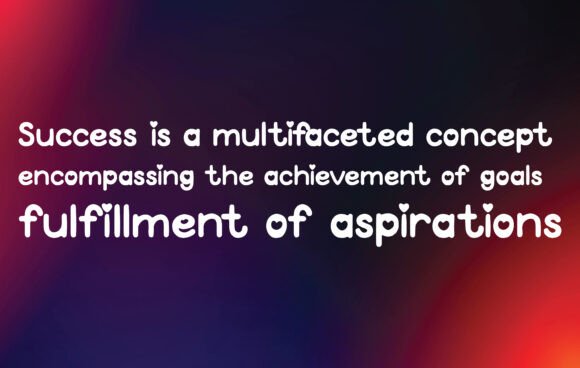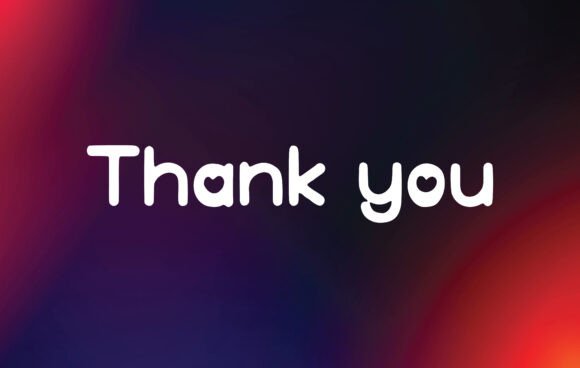
Aphra Font: Elevate Your Creative Projects with Elegance and Sophistication
In the world of typography, a beautiful handwritten font can make all the difference in bringing your creative ideas to life. Introducing Aphra Font, a lovely and beautiful handwritten font that has the potential to take your designs to the highest level. With its elegant and sophisticated charm, Aphra Font is the perfect choice for creating eye-catching logos, branding, and quotes that leave a lasting impression.
The Beauty of Aphra Font
Aphra Font is a stunning example of handwritten typography, with each letter carefully crafted to exude a sense of elegance and refinement. The font’s flowing lines and curves create a sense of movement and fluidity, making it perfect for designs that require a touch of sophistication. Whether you’re looking to create a logo, branding materials, or social media graphics, Aphra Font is sure to impress.
Key Features of Aphra Font
- Handwritten Elegance: Aphra Font boasts a beautiful handwritten style that adds a personal touch to any design.
- Versatile: With its clean and simple design, Aphra Font can be used for a wide range of creative projects, from logos and branding to quotes and social media graphics.
- Ease of Use: Aphra Font is easy to read and works well in both digital and print formats, making it a versatile choice for designers.
- Unique Character: Aphra Font has a unique character that sets it apart from other fonts, making it perfect for designers looking to create something truly special.
Uses of Aphra Font
Aphra Font is an incredibly versatile font that can be used for a wide range of creative projects. Here are some ideas to get you started:
- Logo Design: Create a stunning logo for your business or brand with Aphra Font.
- Branding: Use Aphra Font to create a consistent brand identity across all your marketing materials.
- Quotes and Posters: Add a touch of elegance to your quotes and posters with Aphra Font.
- Social Media Graphics: Use Aphra Font to create eye-catching social media graphics that stand out from the crowd.
- Wedding and Event Stationery: Aphra Font is perfect for creating beautiful wedding and event stationery, such as invitations and thank-you cards.
Why Choose Aphra Font?
With so many fonts available, why choose Aphra Font? Here are just a few reasons why Aphra Font stands out from the rest:
- Unique Style: Aphra Font has a unique style that sets it apart from other fonts.
- Ease of Use: Aphra Font is easy to read and works well in both digital and print formats.
- High-Quality Design: Aphra Font is designed with high-quality craftsmanship, ensuring that it looks great in any design.
- Support for Creative Projects: Aphra Font is perfect for supporting creative projects, such as logos, branding, and quotes.
In conclusion, Aphra Font is a beautiful and elegant handwritten font that has the potential to take your creative ideas to the highest level. With its unique style, ease of use, and high-quality design, Aphra Font is the perfect choice for designers and crafters looking to create stunning logos, branding, and quotes. Whether you’re a seasoned designer or just starting out, Aphra Font is sure to impress.